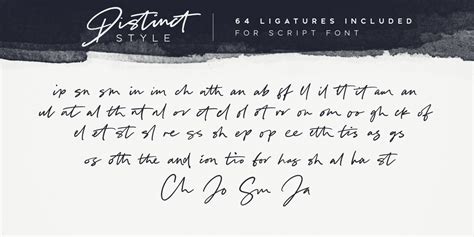
Distinct Style Font. Up to 4 typefaces / 1 value packs. Web distinct style sans bold.
Designed by sam parrett in 2018. Supports at least 21 languages. Up to 4 typefaces / 1 value packs. Buy distinct style font from set sail studios on fonts.com. Web distinct style sans bold. Web distinct style font family. Get stylish with distinct style, a fashionable and contemporary pair of signature & sans. Web distinct style sans bold.
Web distinct style font family. Web distinct style sans bold. Web distinct style font family. Designed by sam parrett in 2018. Supports at least 21 languages. Buy distinct style font from set sail studios on fonts.com. Get stylish with distinct style, a fashionable and contemporary pair of signature & sans. Up to 4 typefaces / 1 value packs.